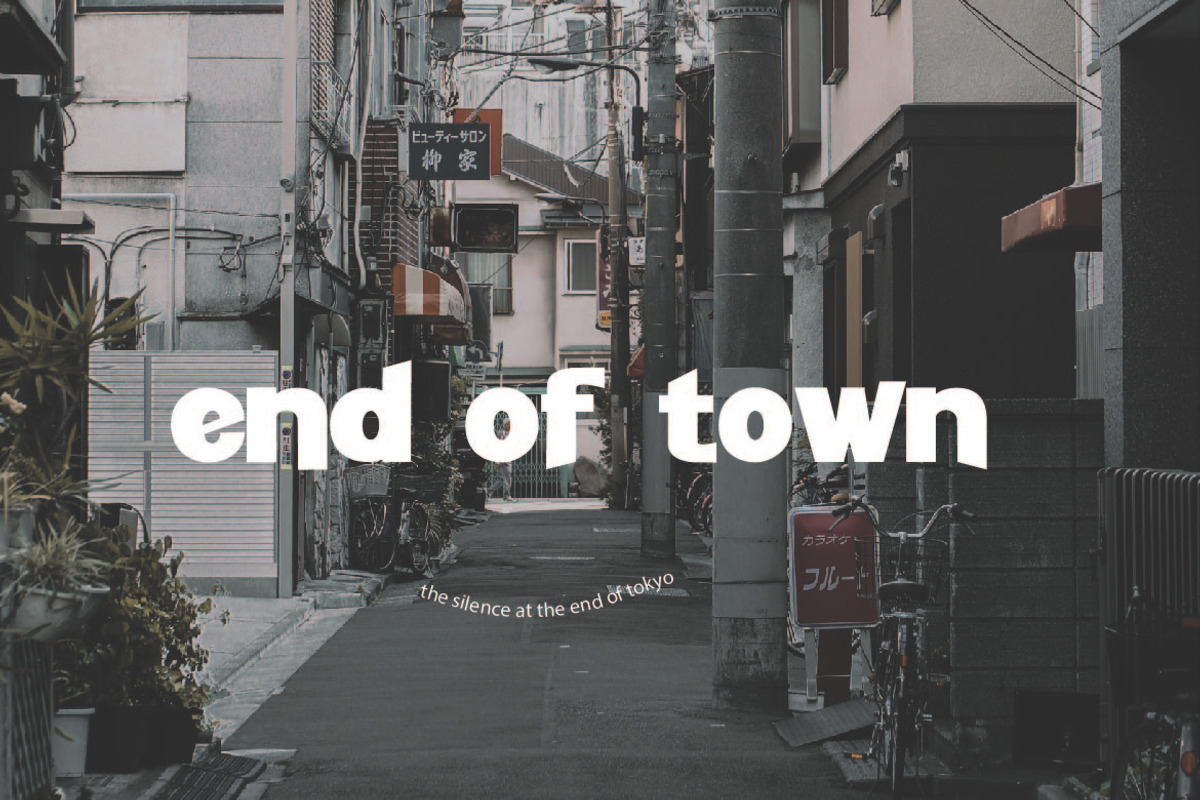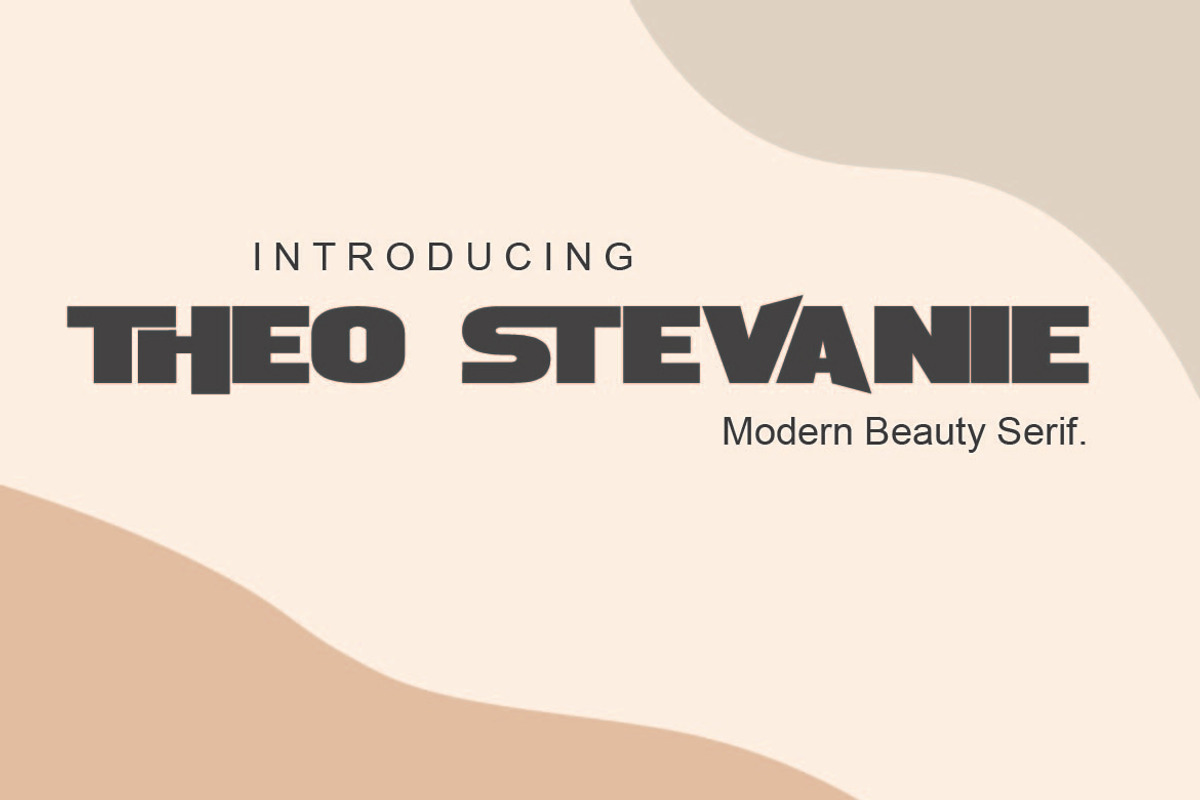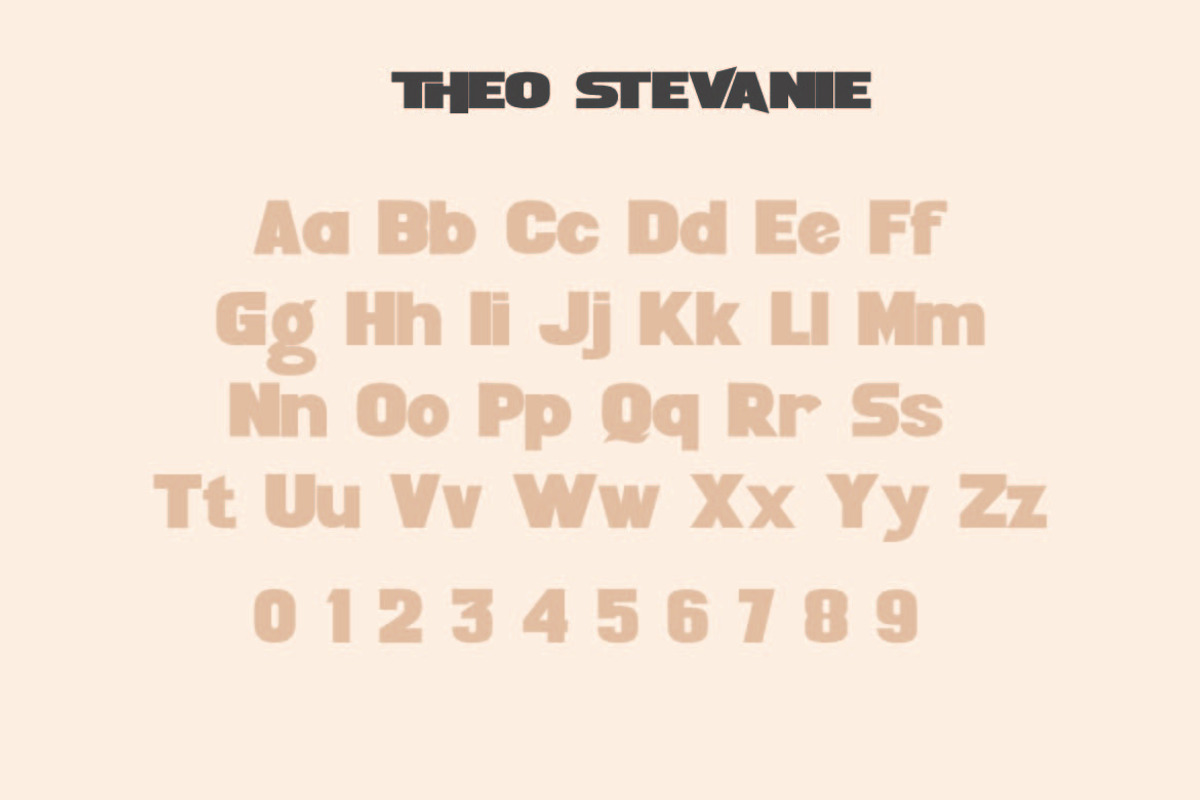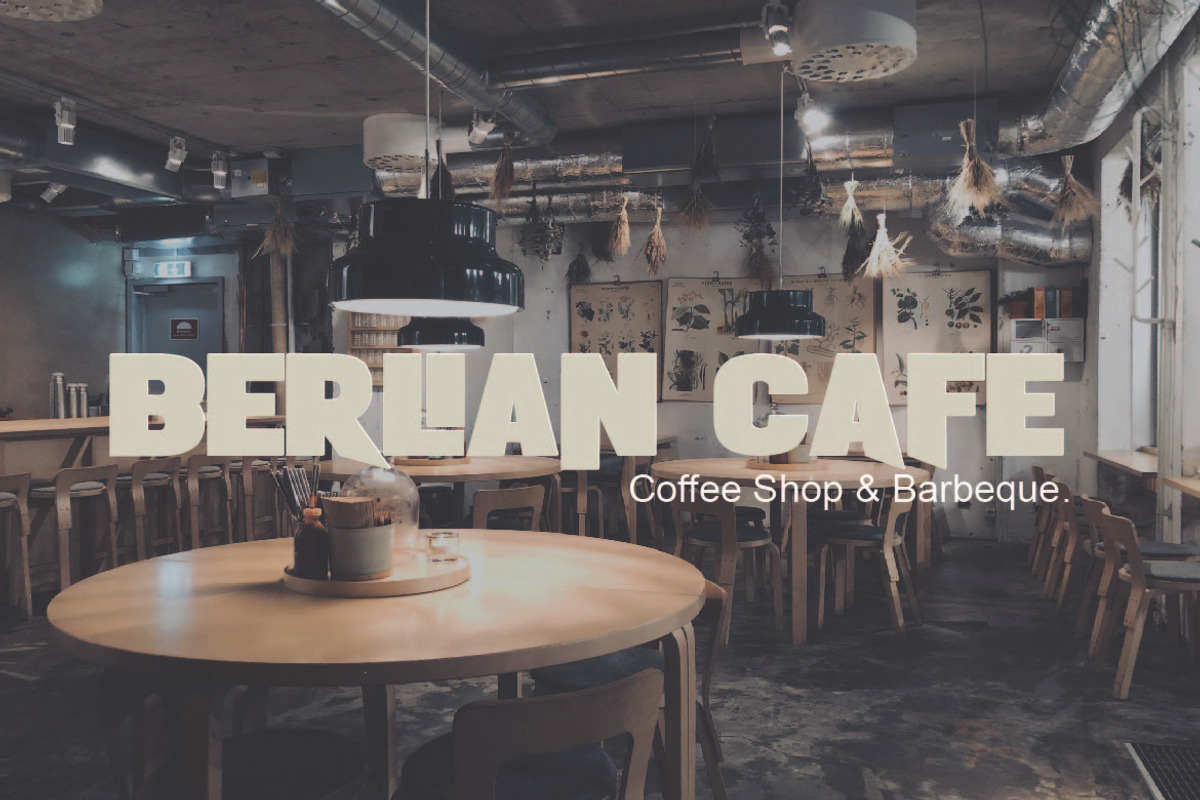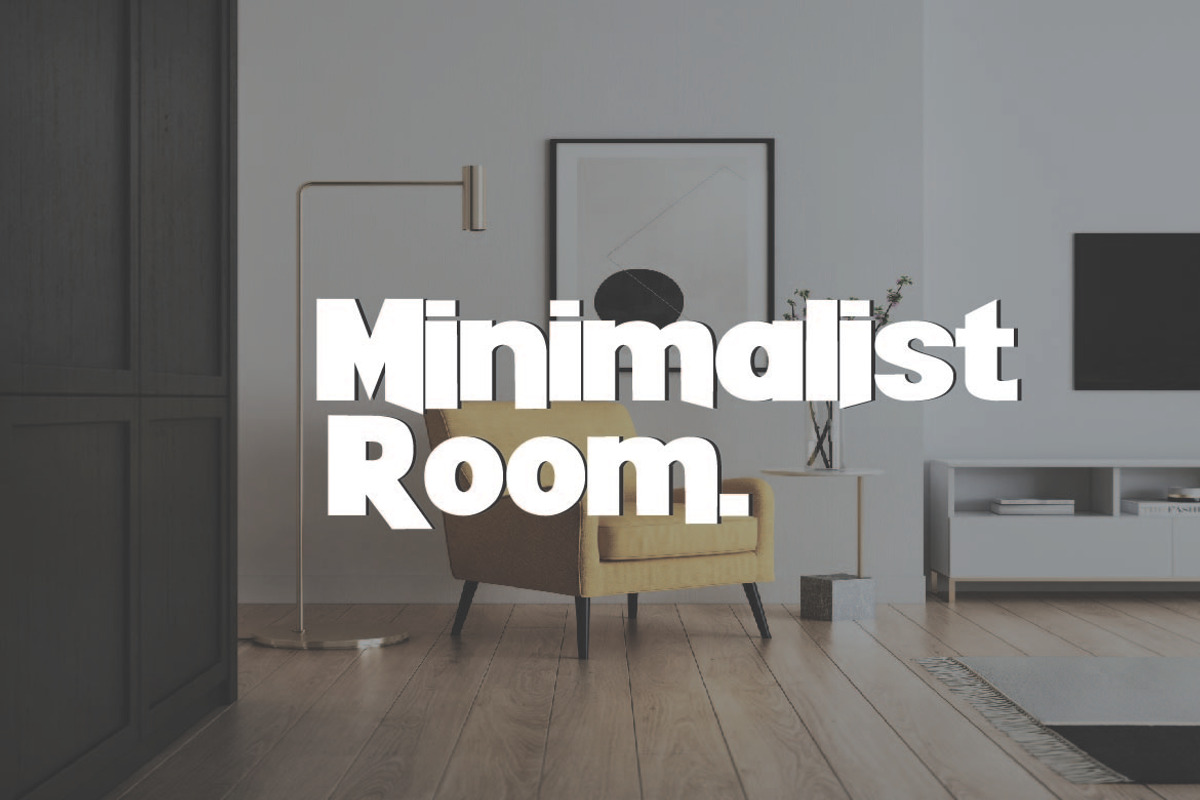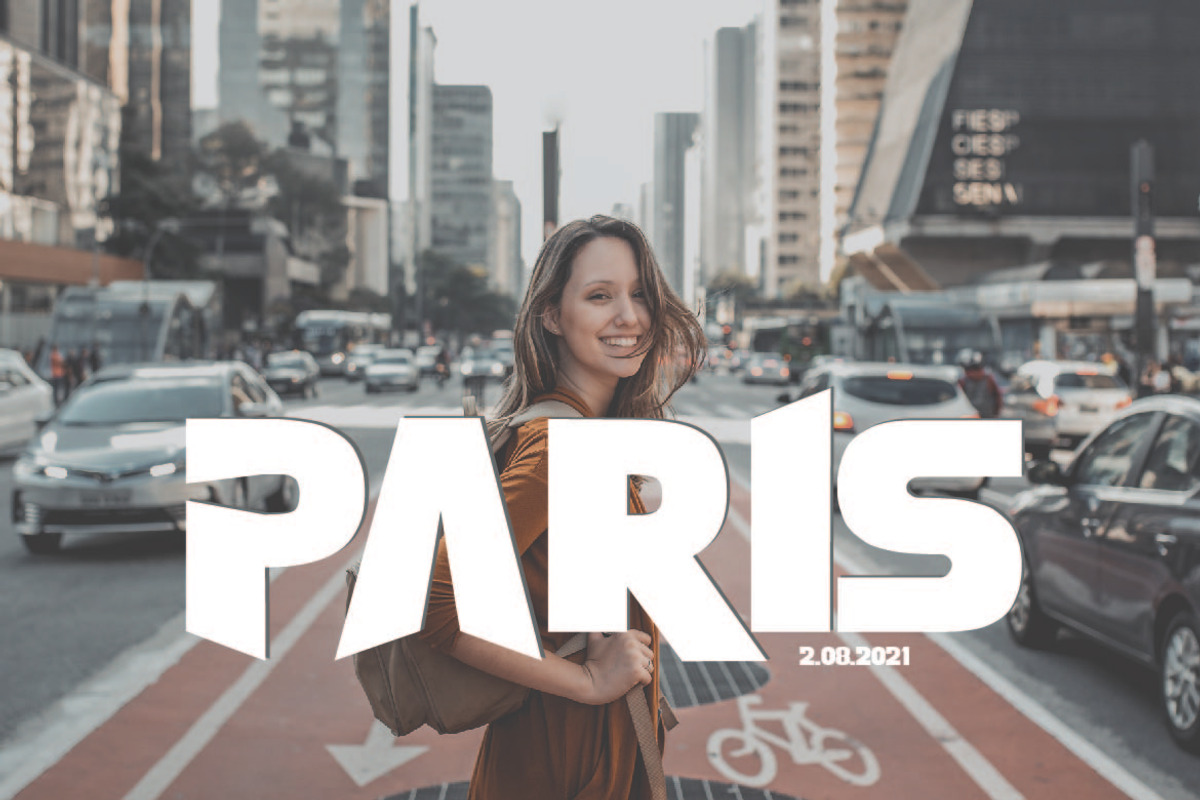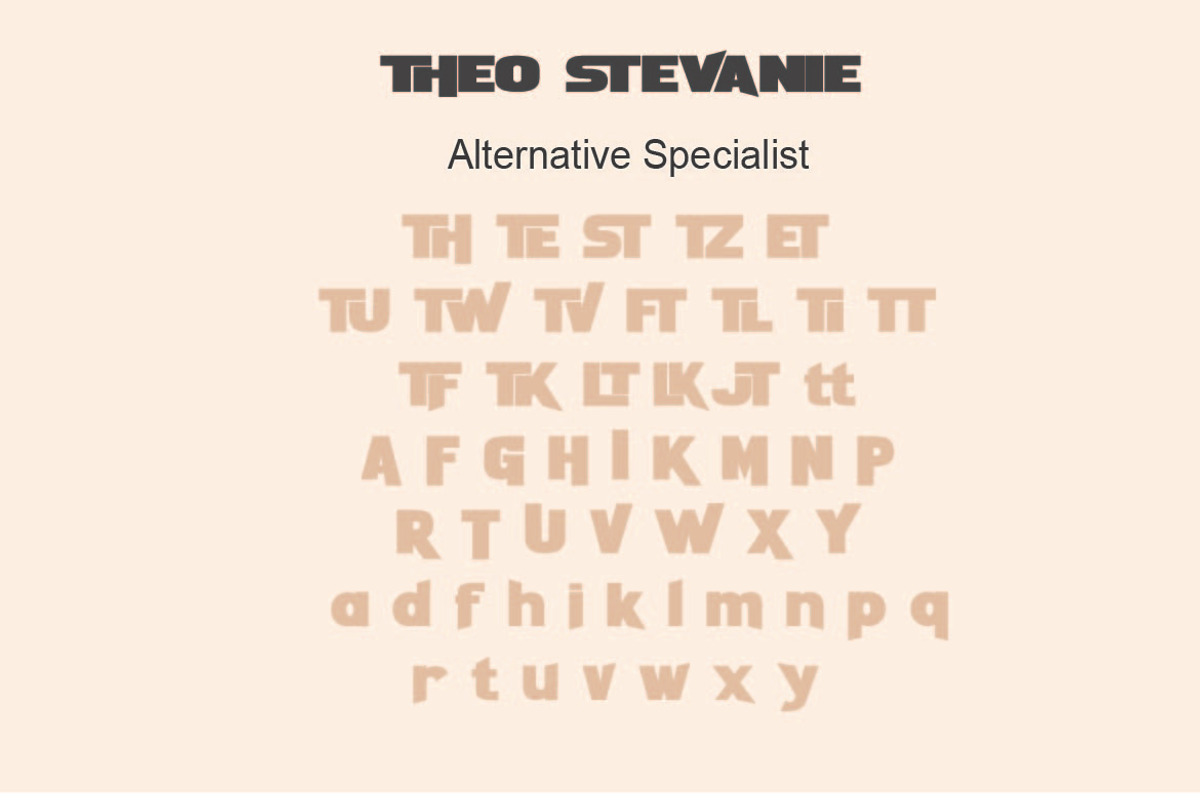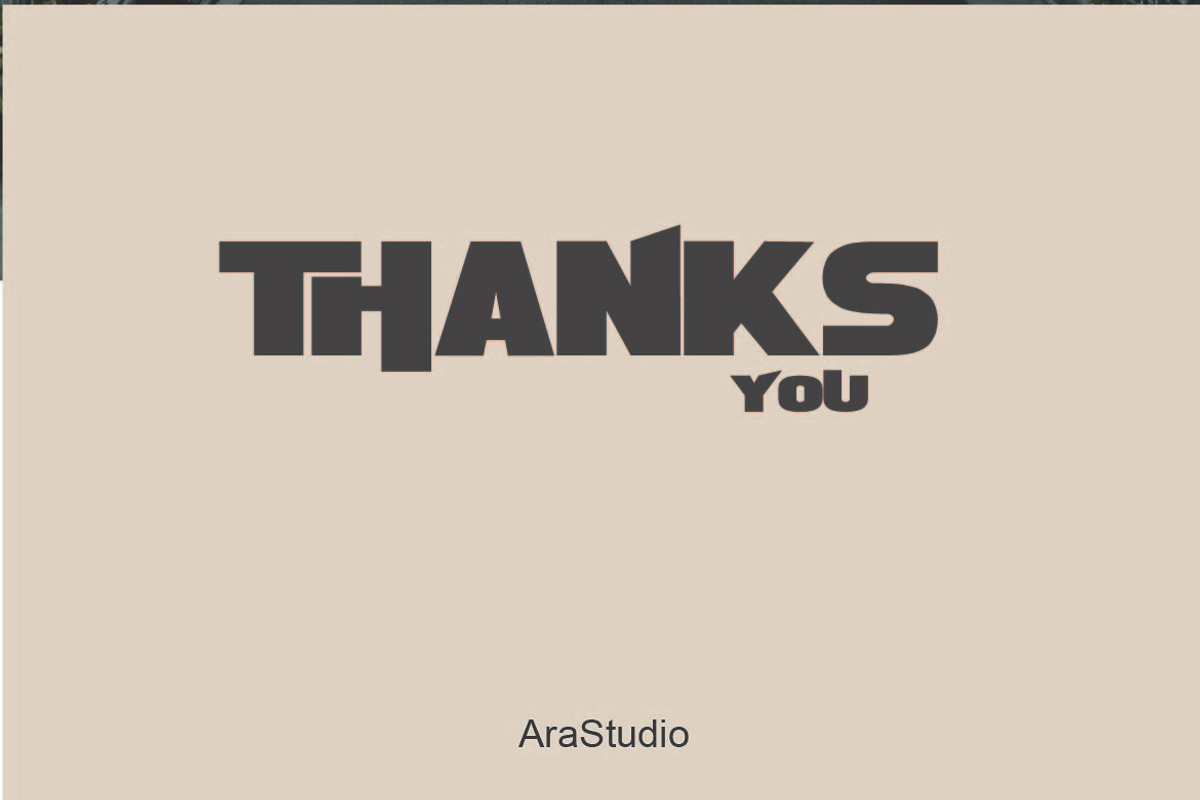
Theo Stevanie
Theo Stevanie Font is Beautyful Sans Serif and modern font combined with a sweet touch and beautifully curved each letter. using a touch of soft curves so that it is pleasing to the eye designs. Theo Stevanie Font is great for: Wedding invitations, fashion magazines, logos, signatures, and suitable for watermark photography.
Included with Theo Stevanie is a full set of Uppercase and ending lowercase Special Character, Ligature, to create a realistic look for your designs.